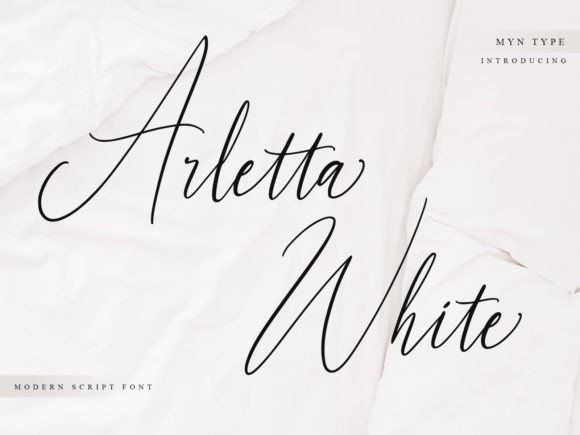
Introduction to Arletta White Font
Arletta White is a modern calligraphy script perfect for wedding invitations, calligraphy logos for branding, elegant websites, gifts, social media posts or simply to use to express words over a background and anything else your heart desires.